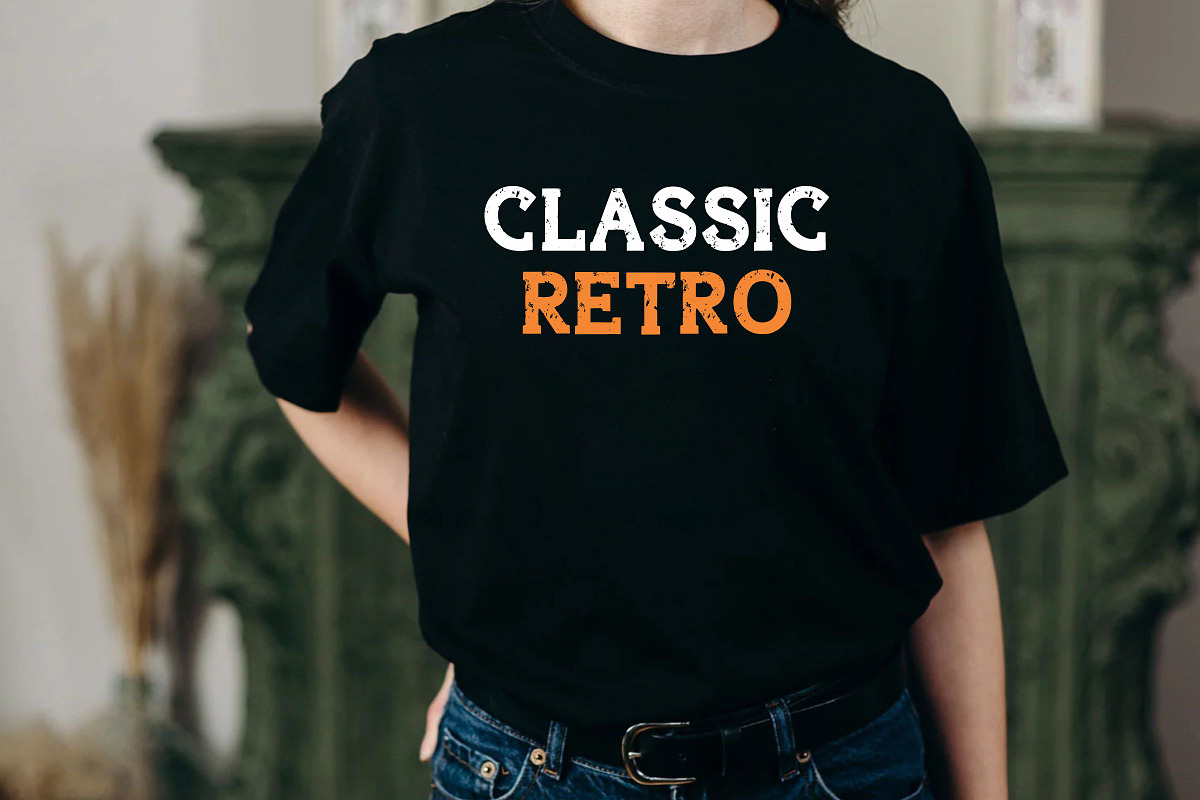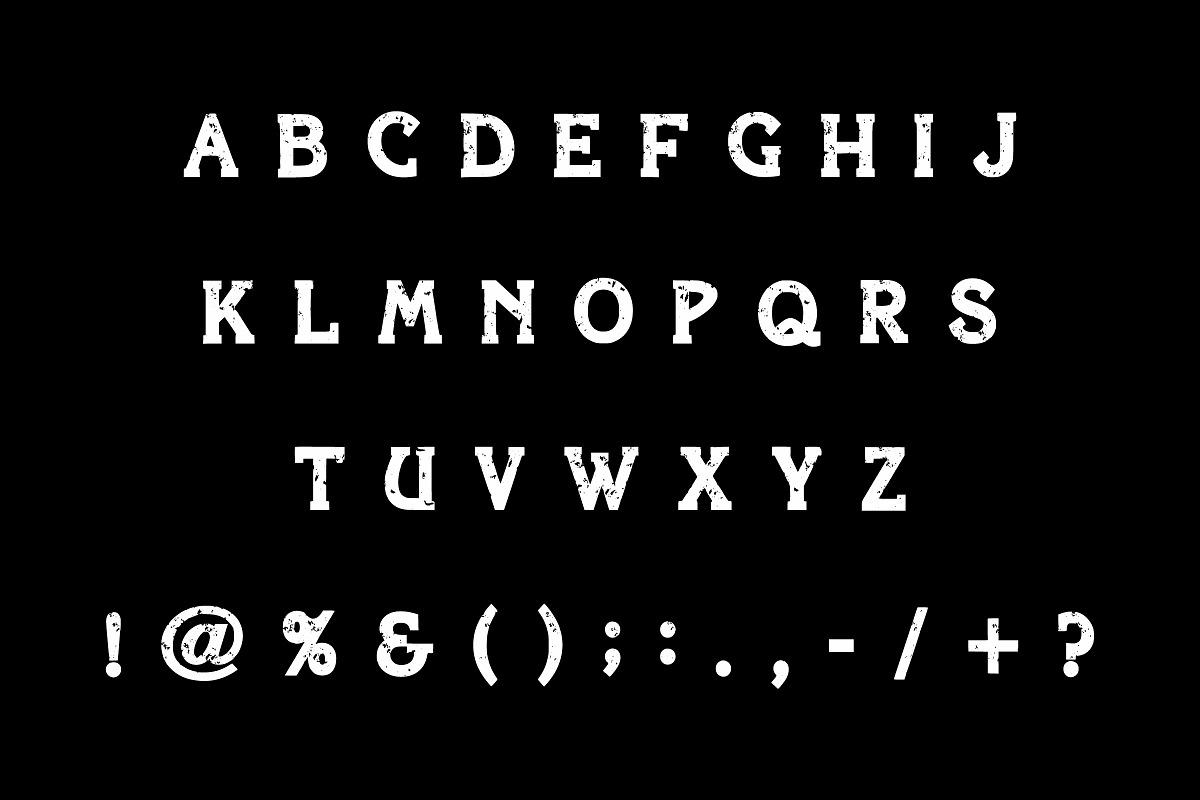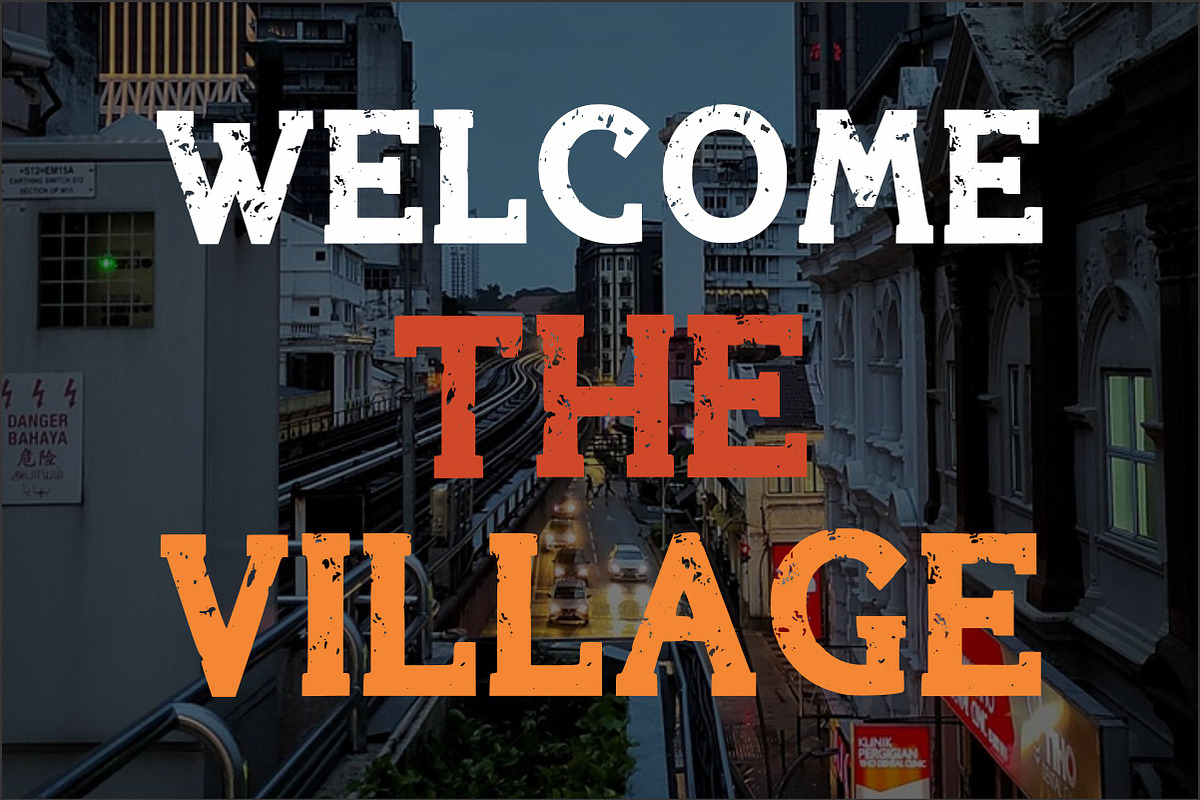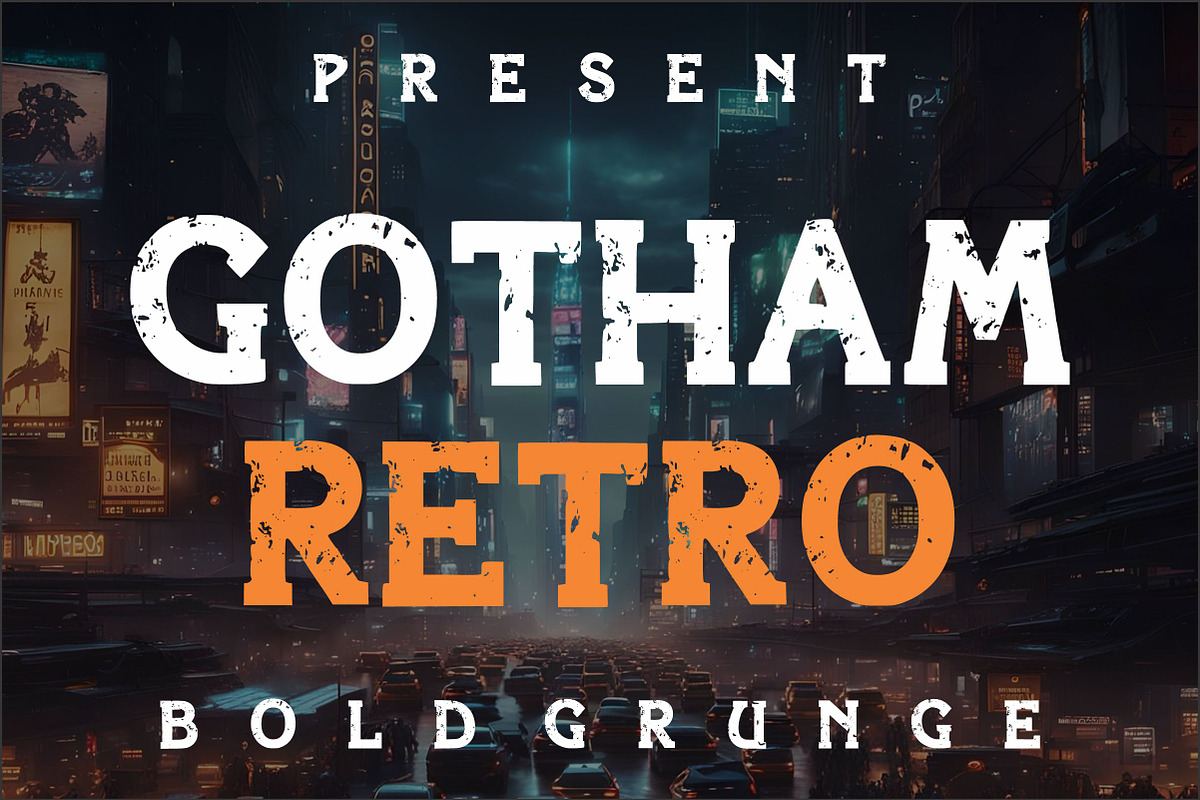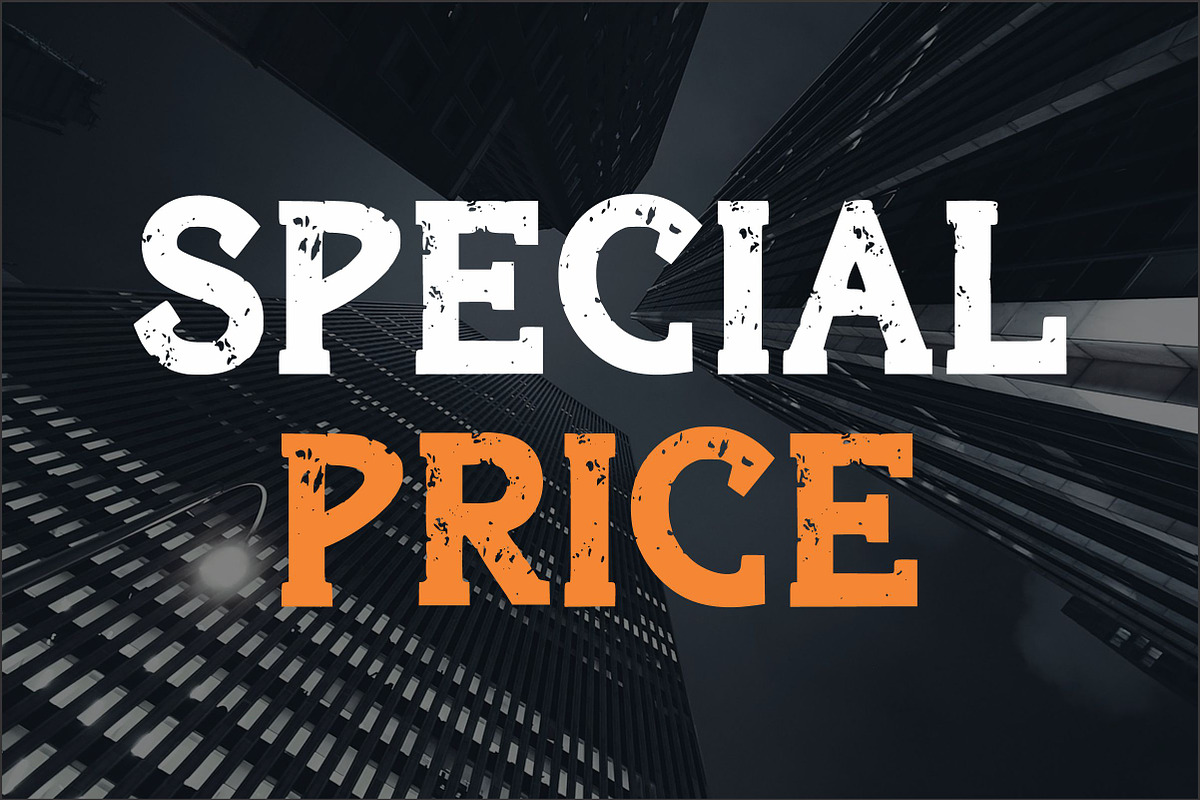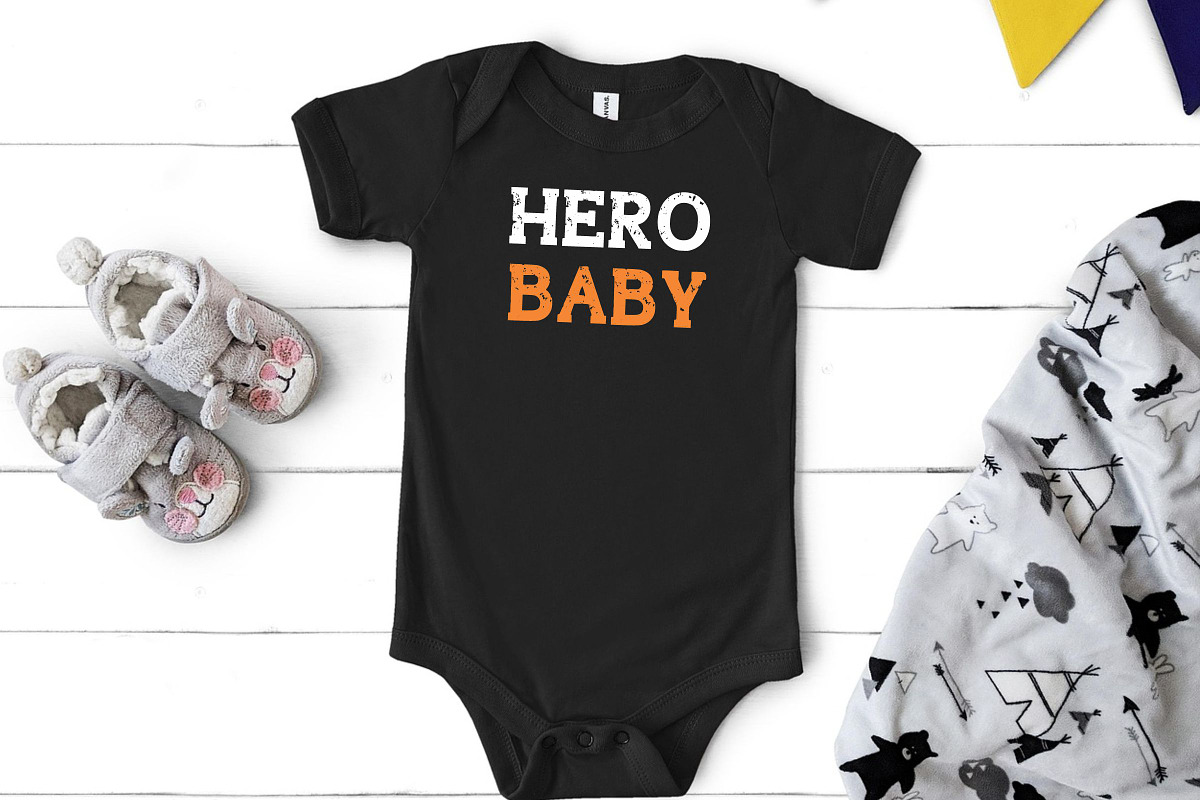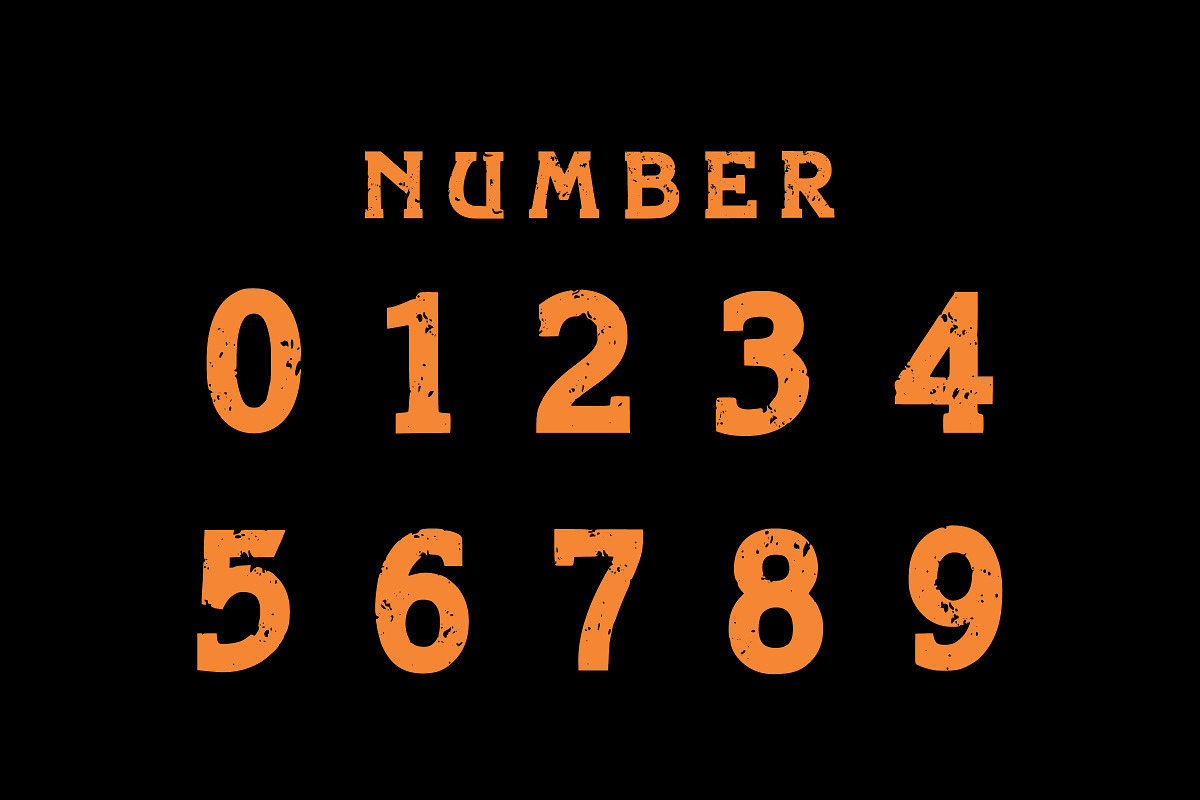
Gotham Retro
Unleash the gritty, dark, and powerful energy of a neo-noir metropolis with Gotham Retro.
This font delivers a striking, high-impact aesthetic perfect for projects that demand attention. With its bold, condensed structure and a textured, distressed finish, it captures the essence of a retro-futuristic urban landscape—think vintage sci-fi, classic comic books, and modern cinema titles.